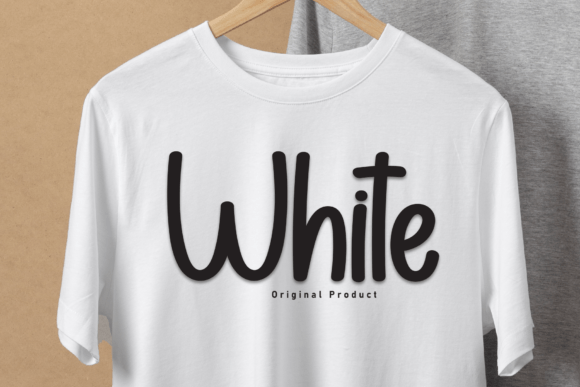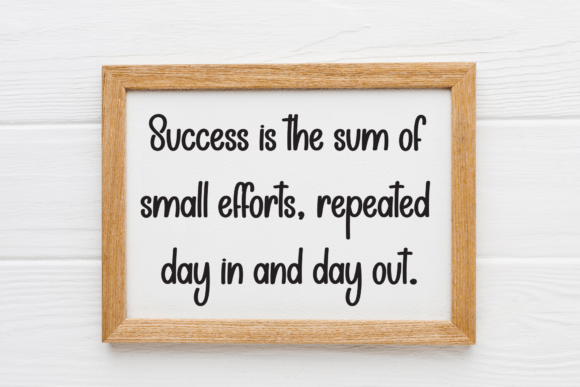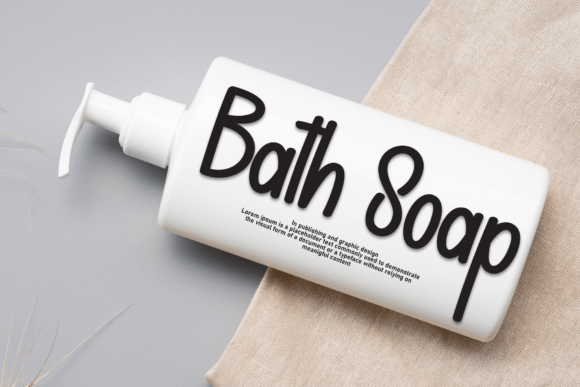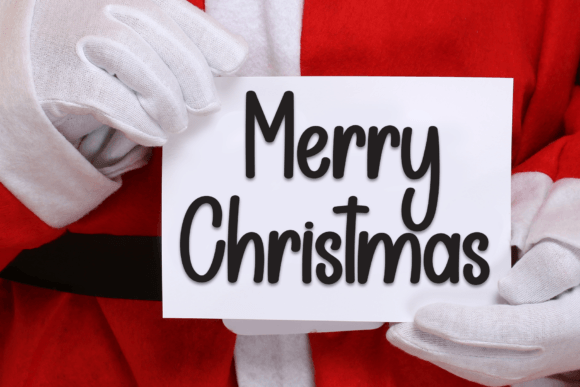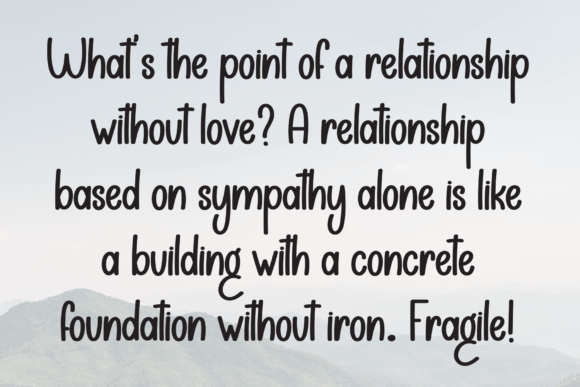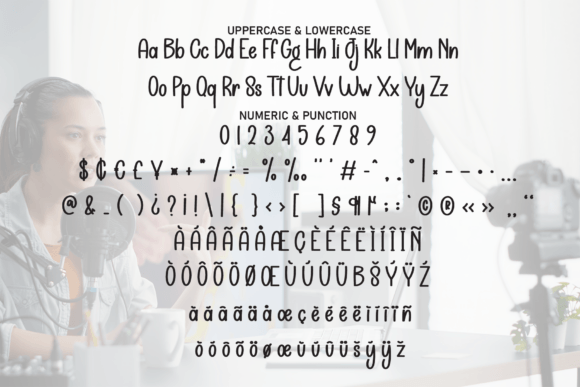
Introducing the Digital Creator Font: Your New Go-To for Charming Designs
Have you ever been in the middle of a design project, and suddenly, you’re stuck on finding the perfect font? I recall a recent experience where I was working on a wedding invitation design, and my client specifically asked for a font that would convey a light-hearted, cheerful tone. After scouring through numerous font libraries, I stumbled upon the Digital Creator Font, and it instantly became my top choice. In this article, I’ll share my experience with this charmingly cheerful handwritten display font and how it can elevate your creative projects.
Here’s what I love about the Digital Creator Font:
- ✨ Warm and Friendly Demeanor: This font exudes a sense of warmth and friendliness, making it perfect for designs that require a personal touch.
- ✅ Whimsical Style: The font’s playful and whimsical style adds a sweet, fun element to any design, making it irresistibly appealing.
- 🎉 Versatility: It works beautifully for wedding invitations, cards, and other design projects that require a light-hearted tone.
While the Digital Creator Font is amazing, there are a few quirks to consider:
- 🤔 Limited Suitability for Body Text: Due to its decorative nature, this font might not be the best choice for body text, especially for longer paragraphs.
- ⚠️ Occasional Kerning Issues: As with any font, there might be some kerning issues, especially when using it in combination with other fonts.
The Story Behind the Font: Designer Inspiration
The Digital Creator Font was designed with the intention of creating a friendly, approachable font that would bring a smile to the viewer’s face. The designer aimed to craft a font that would be perfect for creative projects, such as wedding invitations, cards, and other designs that require a light-hearted tone. The result is a charmingly cheerful font that is sure to delight.
Q: Is the Digital Creator Font suitable for body text?
A: While the Digital Creator Font is beautiful, it’s recommended to use it for display text or headings, as it might not be the best choice for longer body text.